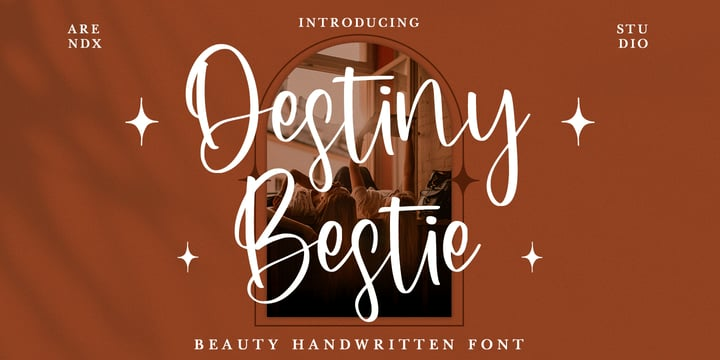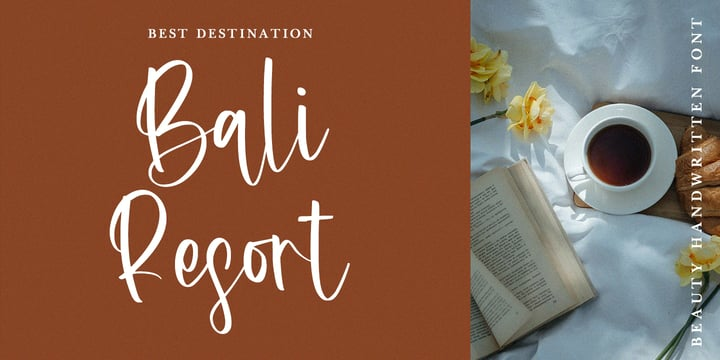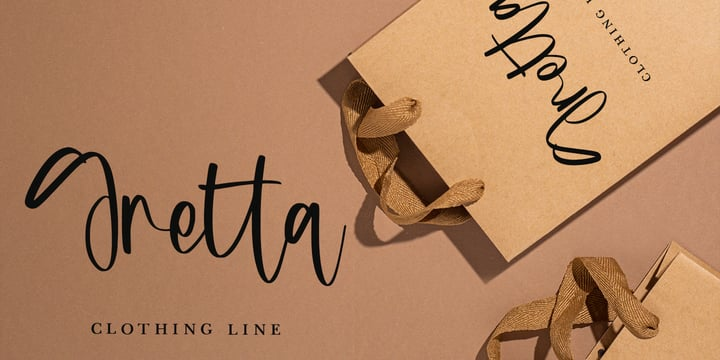
Destiny Bestie Font
Destiny Bestie FontDestiny Bestie – Beauty Handwritten Font is a font with distinctive handwritten characters perfect for branding projects, logos, wedding designs, media posts, advertisements, product packaging, product designs, labels, photography, watermarks, invitations, stationery, and any project who need handwritten dishes.